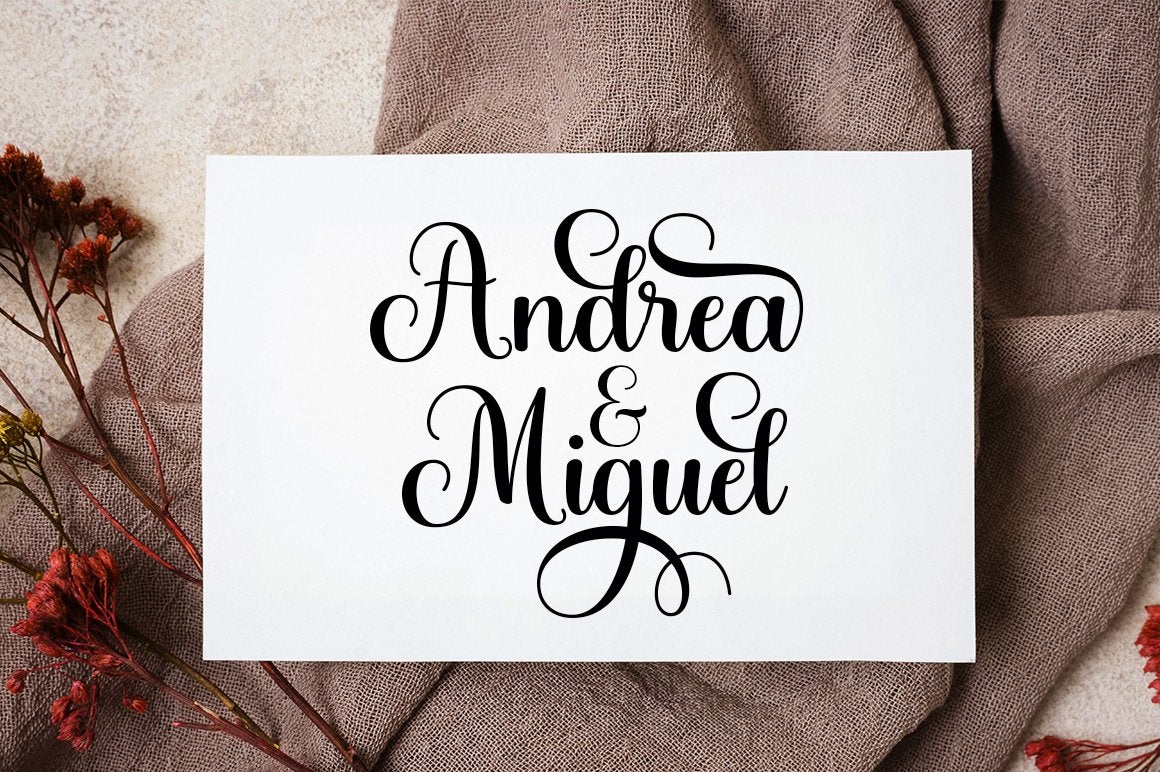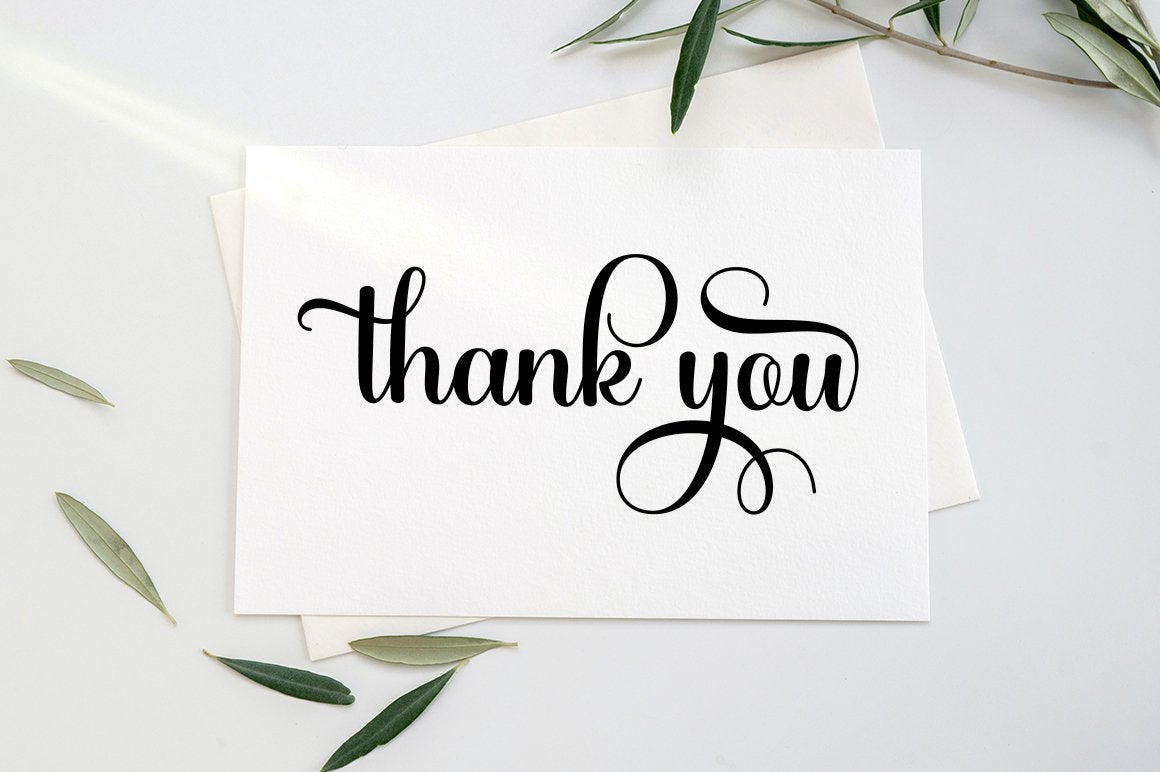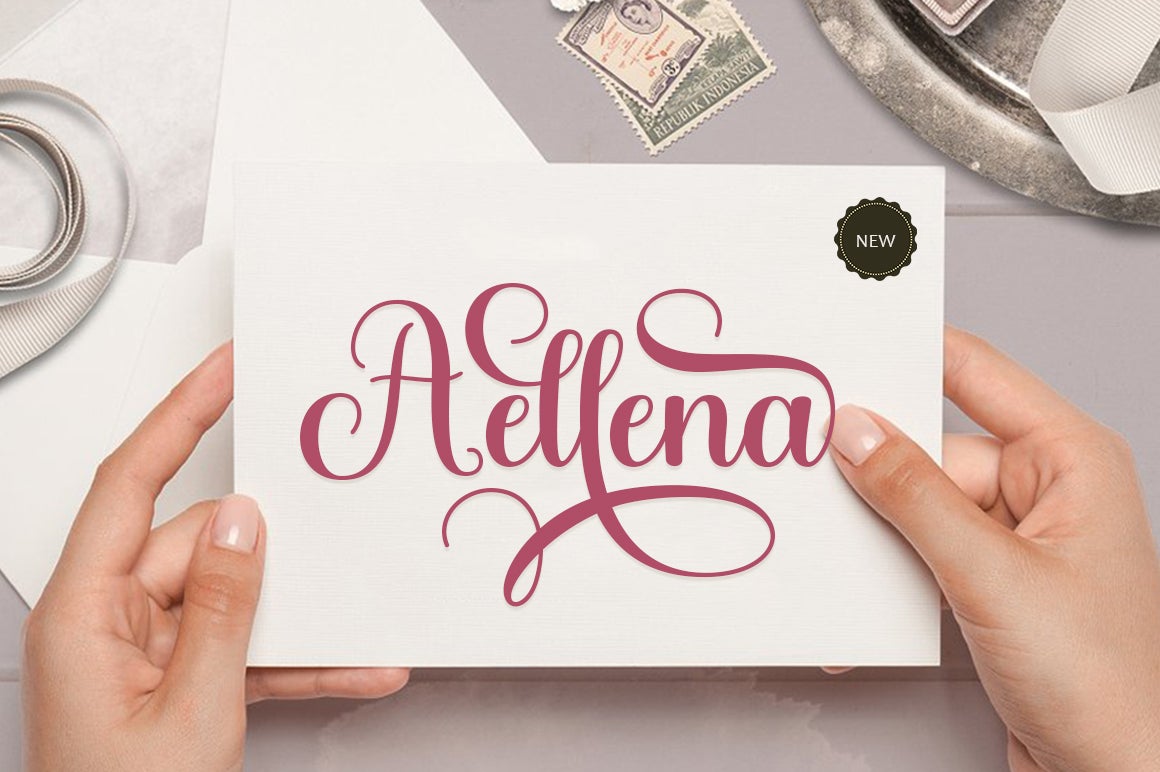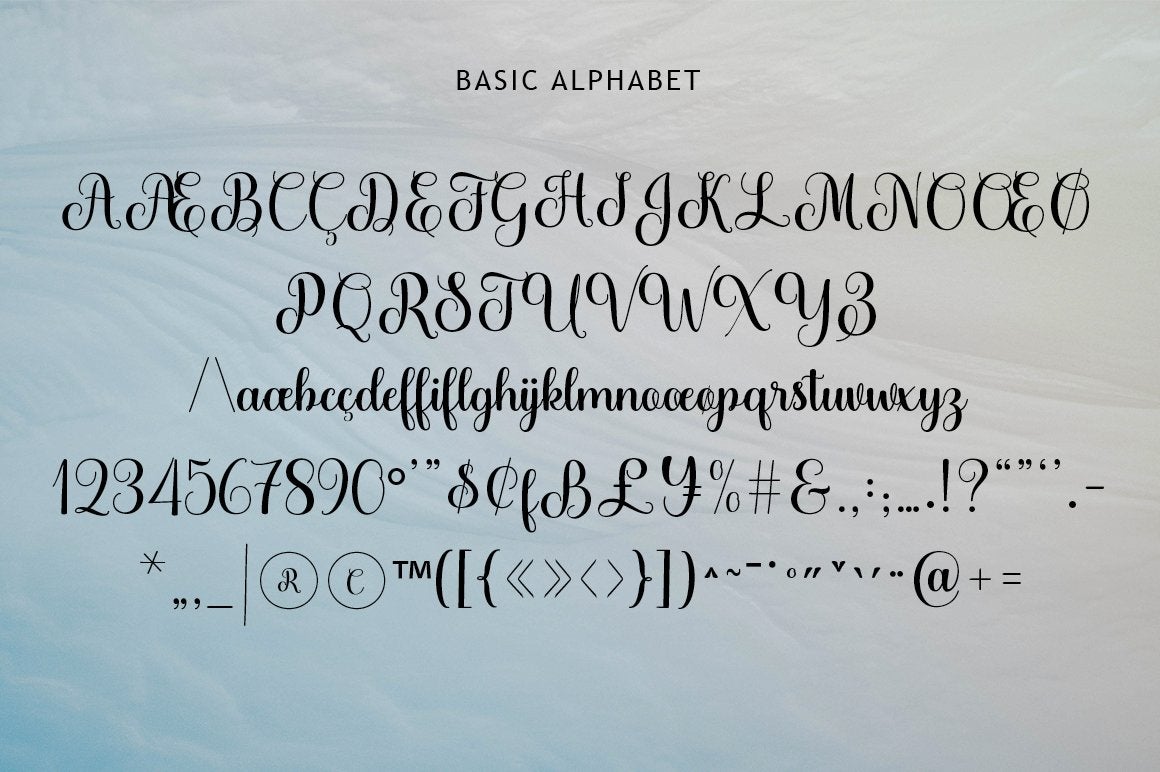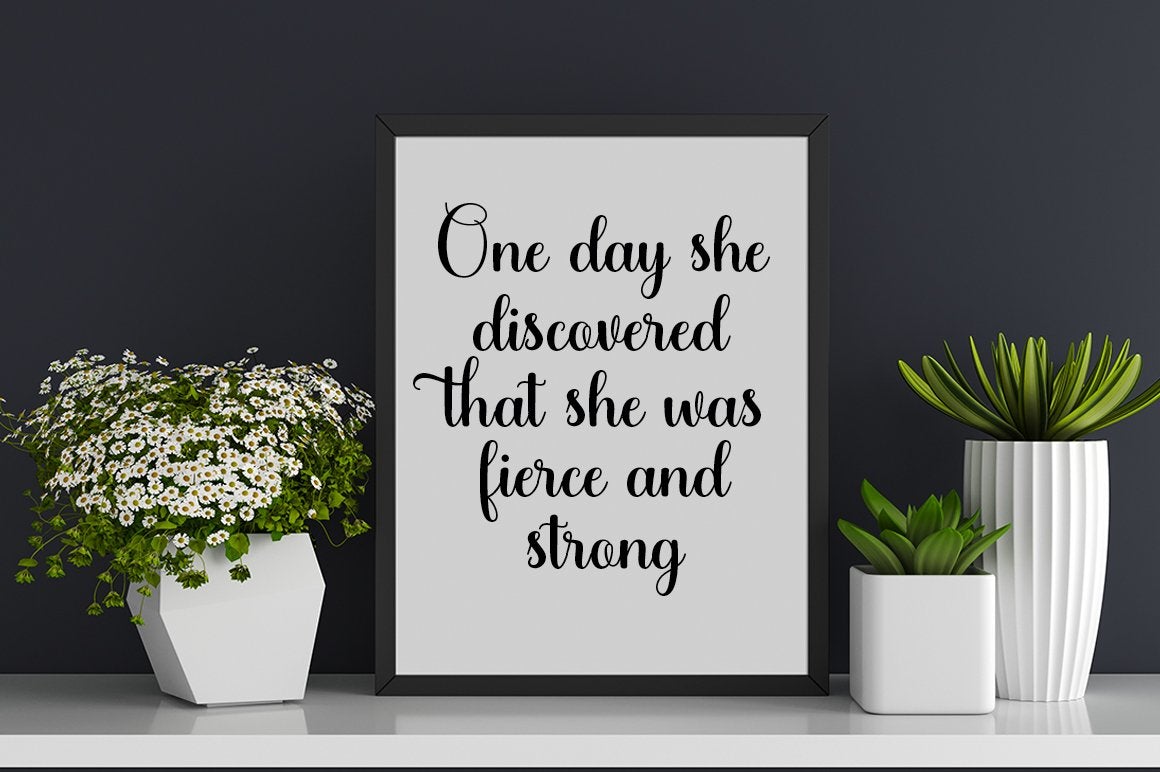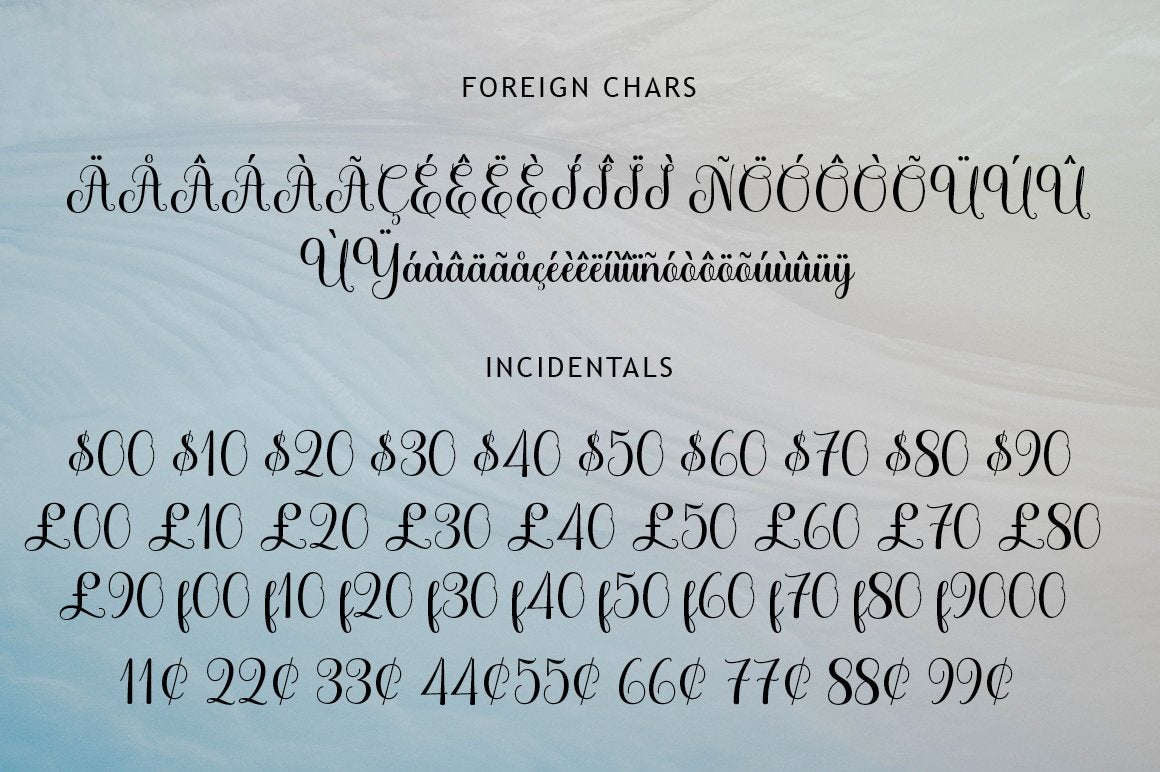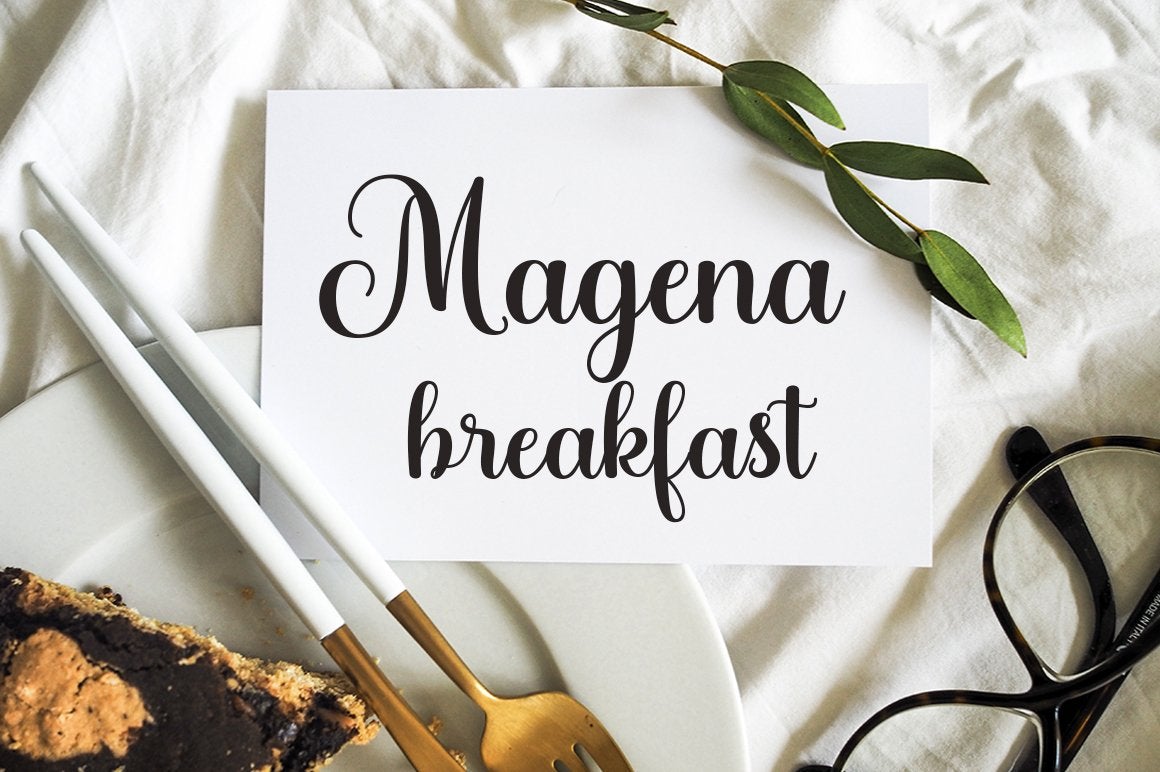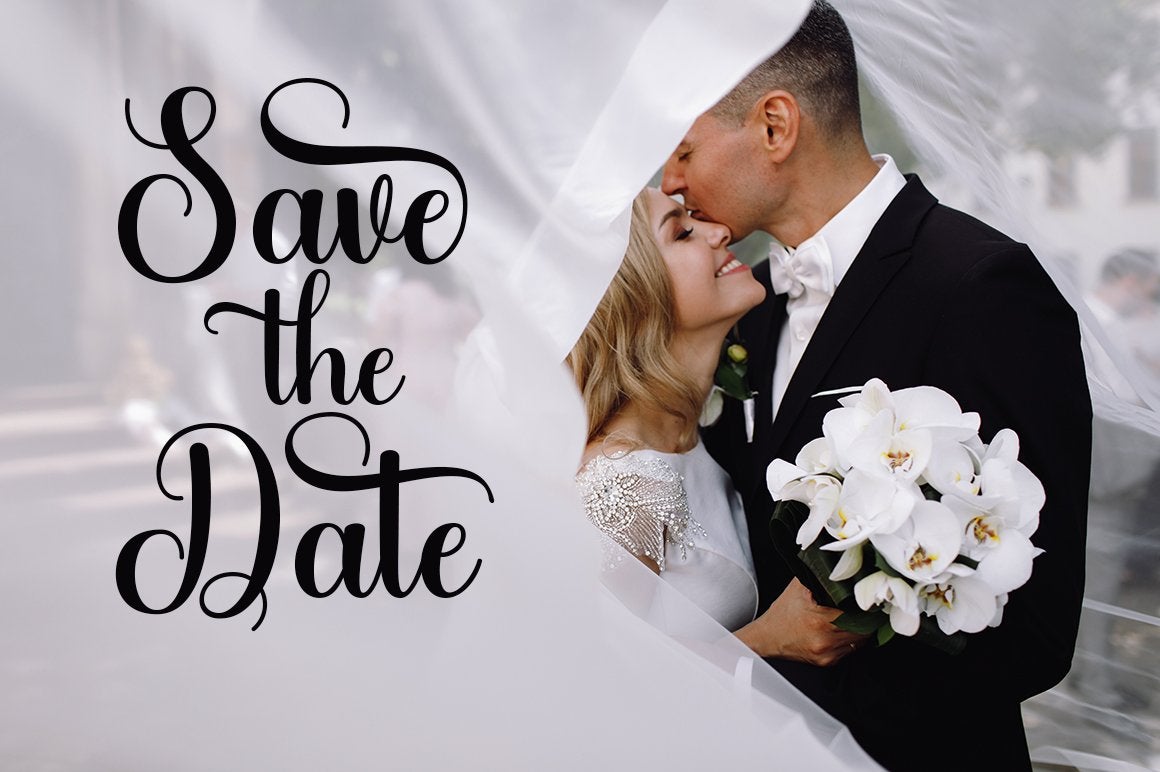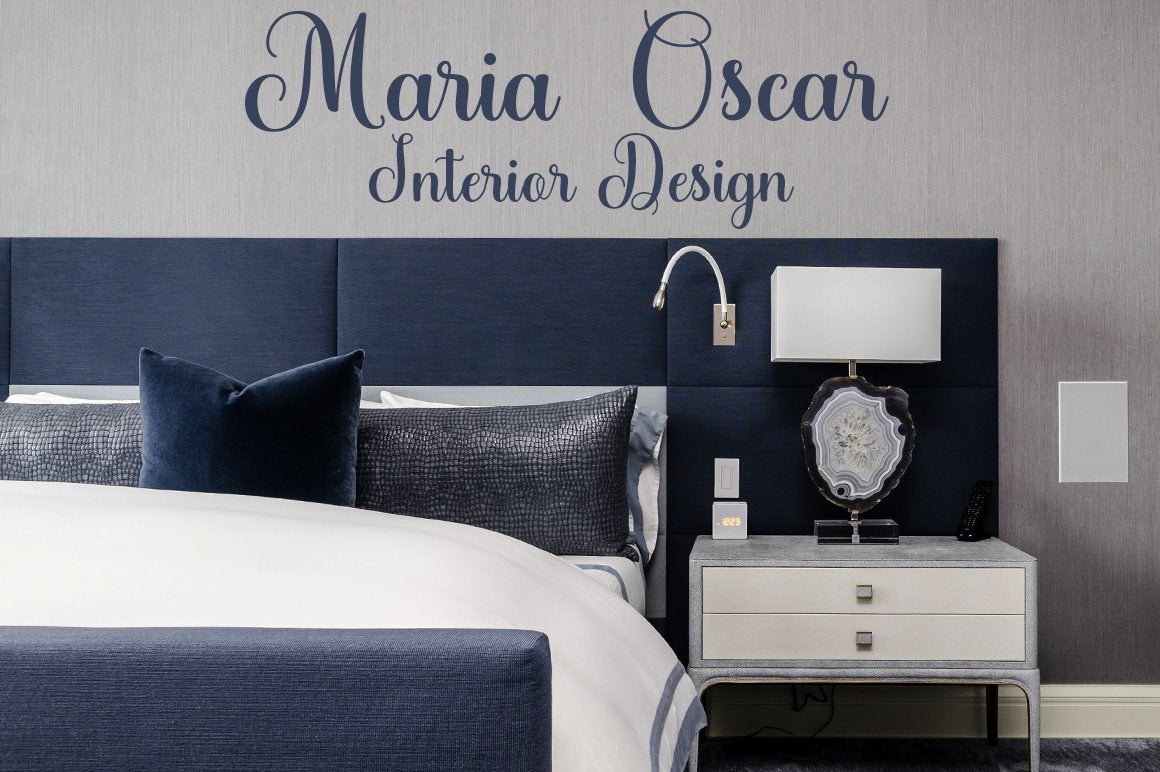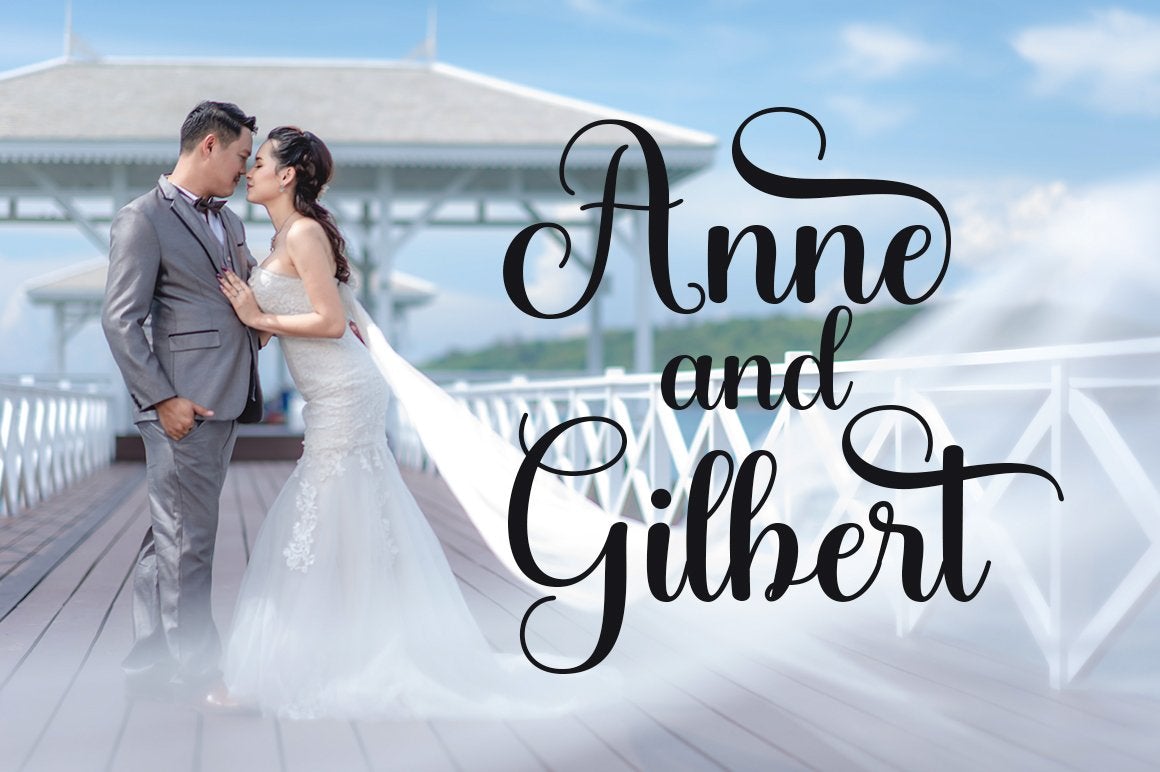
Aellena
About Aellena
Aellena is a very unique handwritten font. Expertly designed to be a true favorite, this font has the potential to bring out your every creative idea like Weddings, Cards, Invitations, etc. to the highest level! This font is PUA encoded which means you can access all glyphs and swashes with ease!